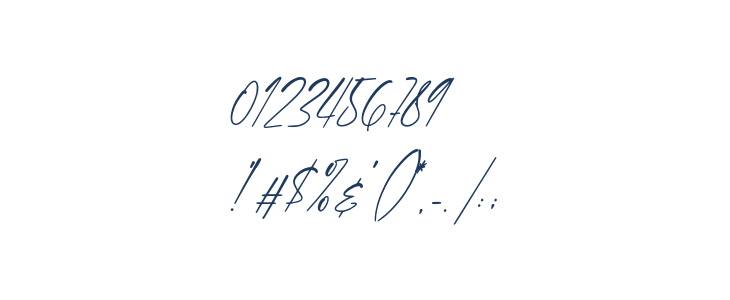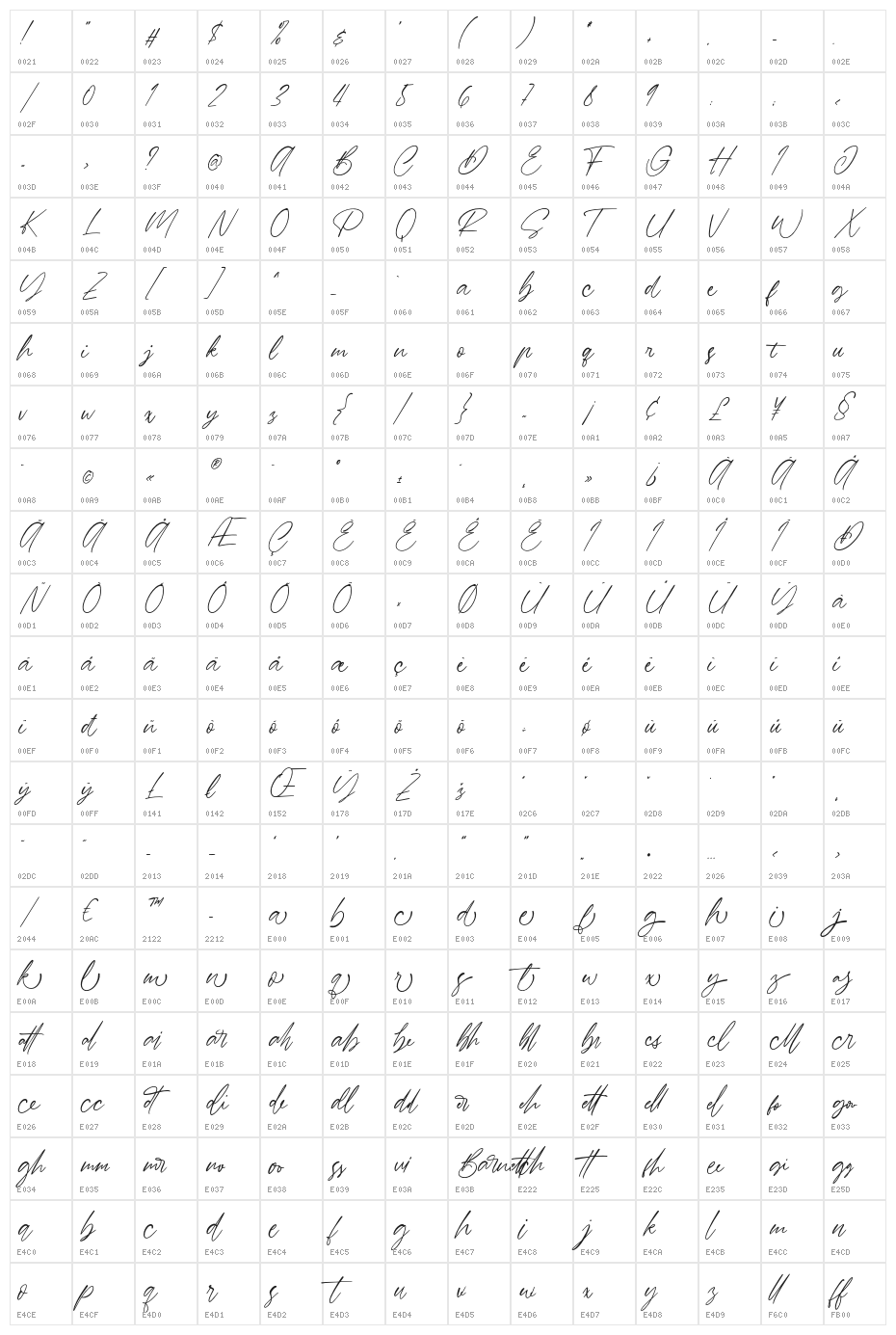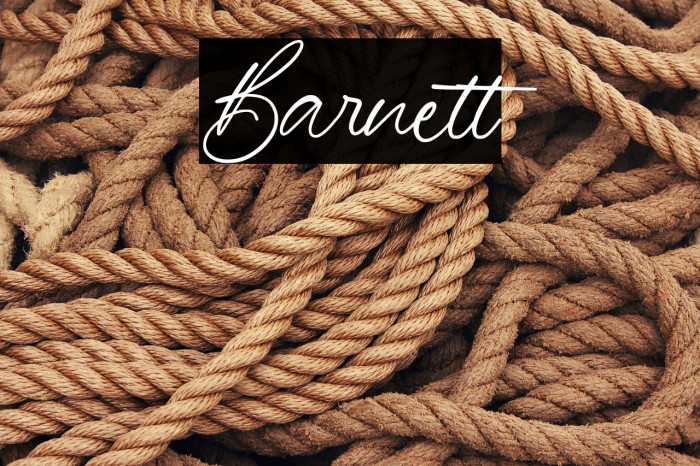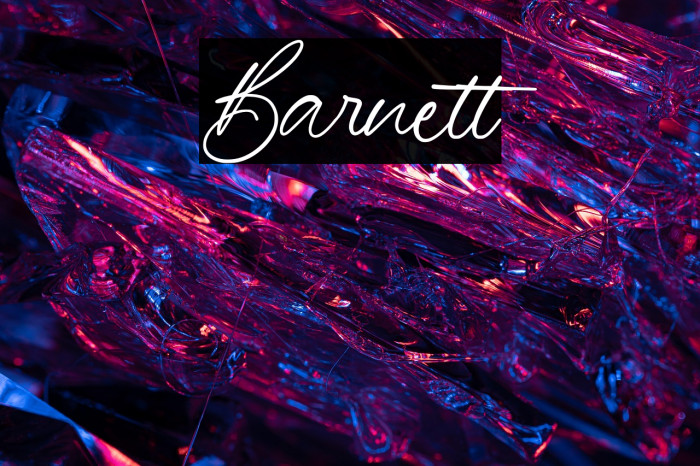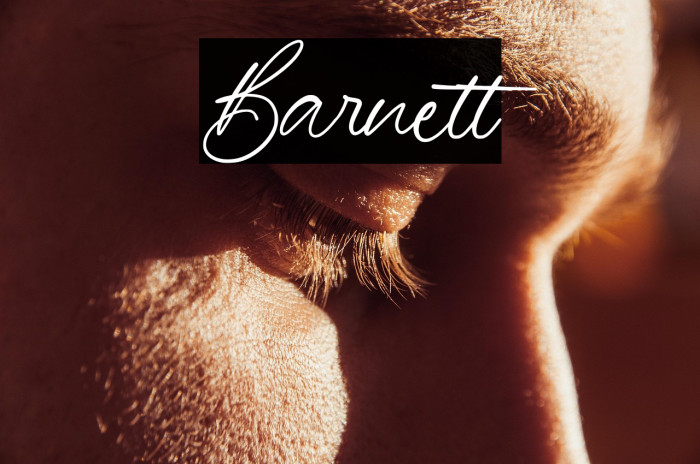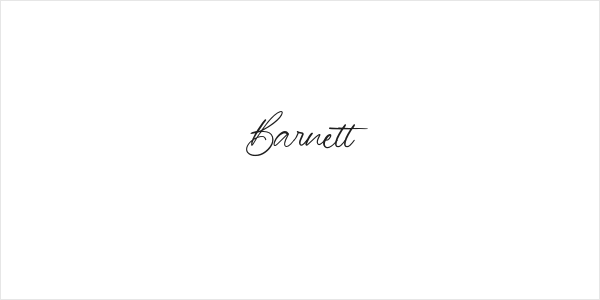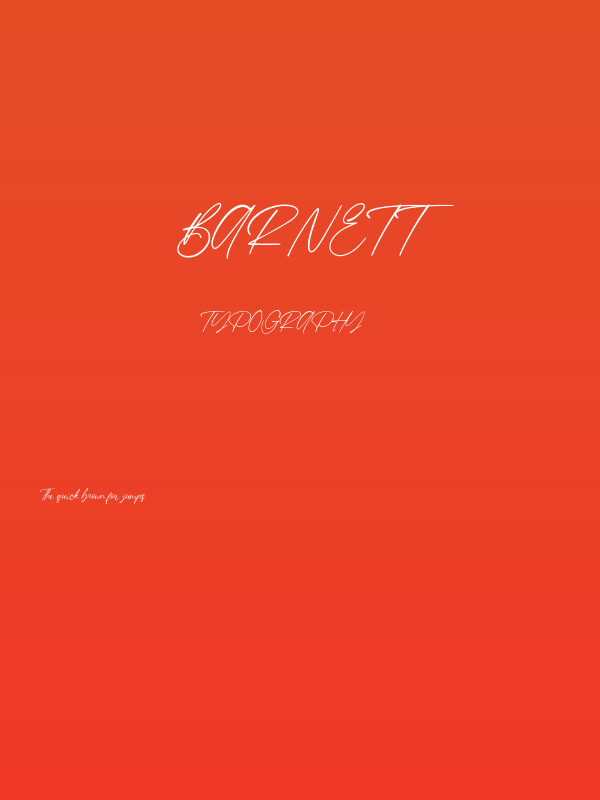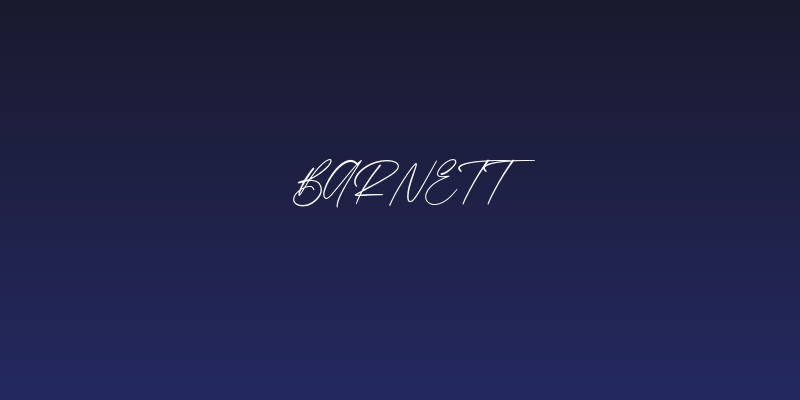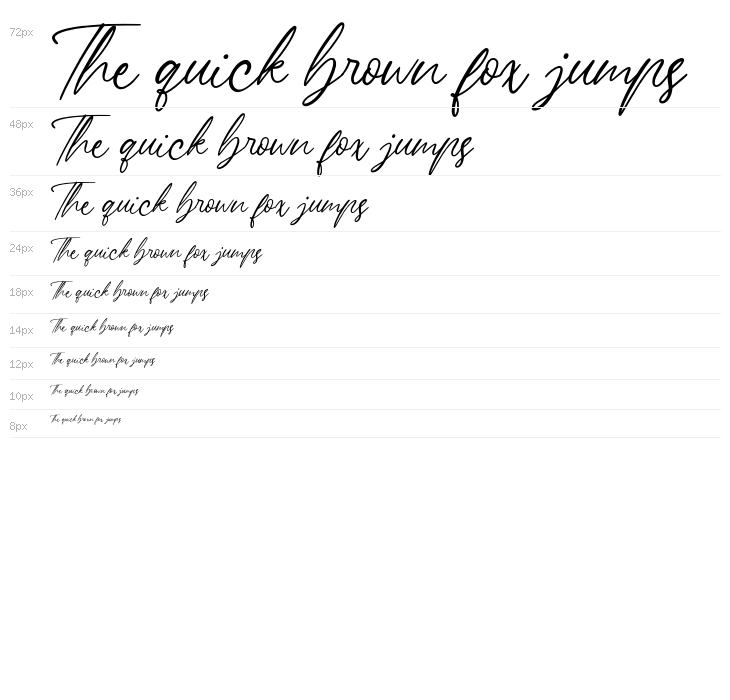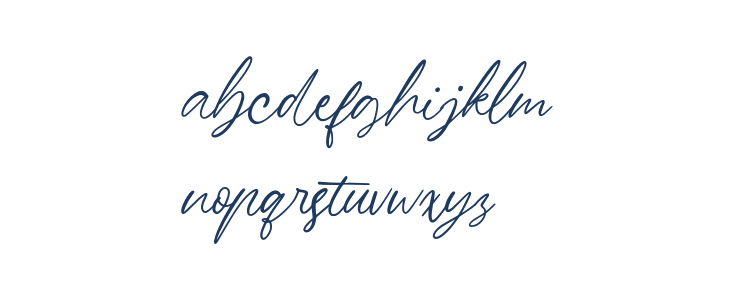
Barnett Font
Barnett Description
This font exudes a sophisticated and elegant handwritten style, characterized by its fluid and connected letterforms. The uppercase letters are tall and slightly slanted, giving a sense of movement and grace. The lowercase letters maintain a consistent flow, with smooth curves and loops that enhance its cursive nature. The numerals are stylishly integrated, maintaining the overall aesthetic of the script. Special characters are thoughtfully designed to complement the alphabet, ensuring a cohesive look. This font is perfect for projects that require a personal touch, such as invitations, greeting cards, or branding materials.
| Proposed Projects | Ideal for wedding invitations, personal branding, greeting cards, and elegant packaging designs. |